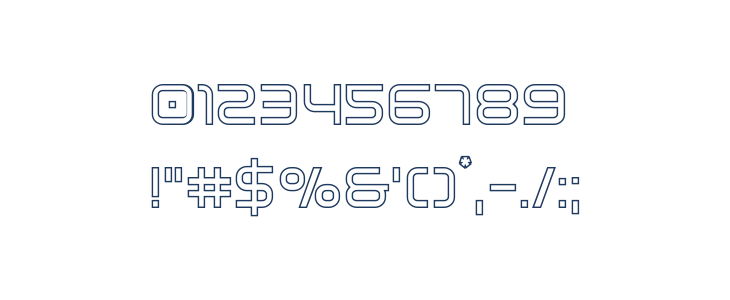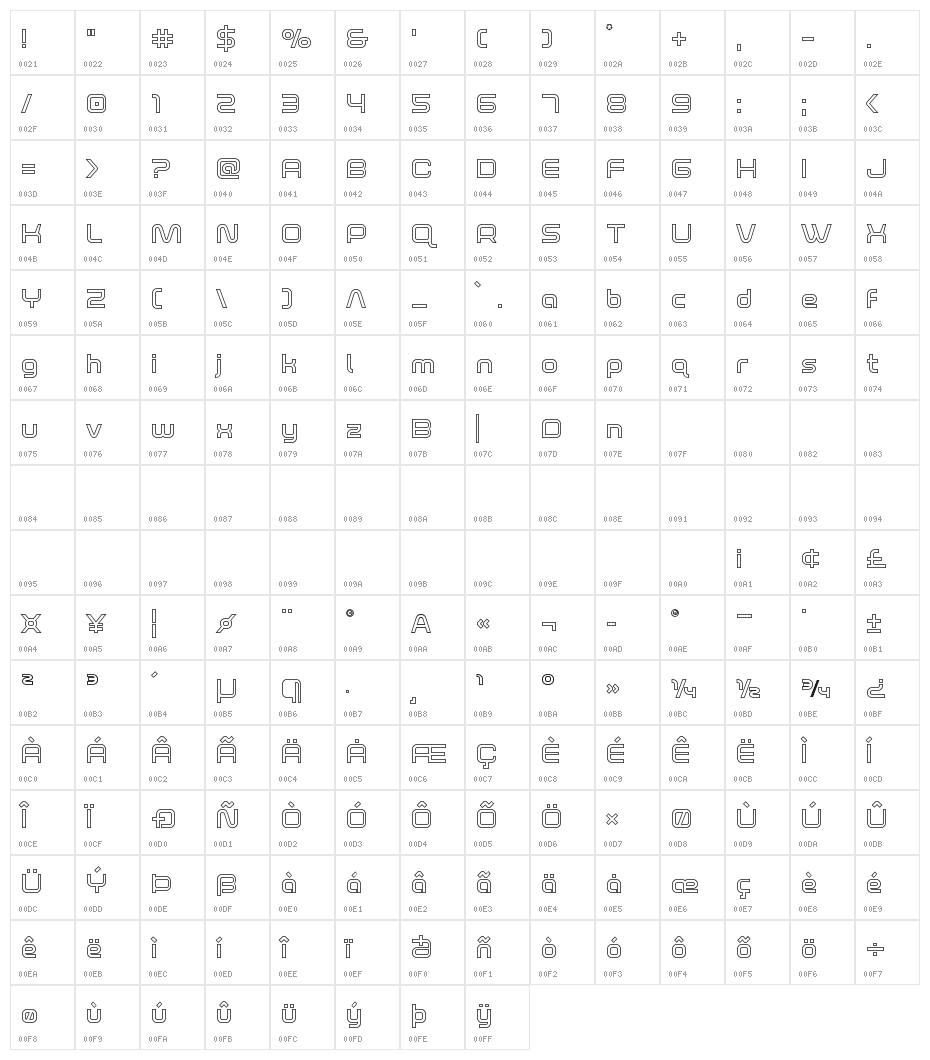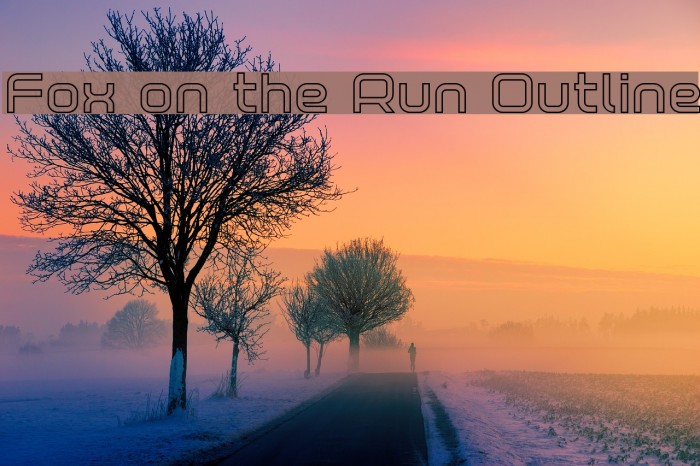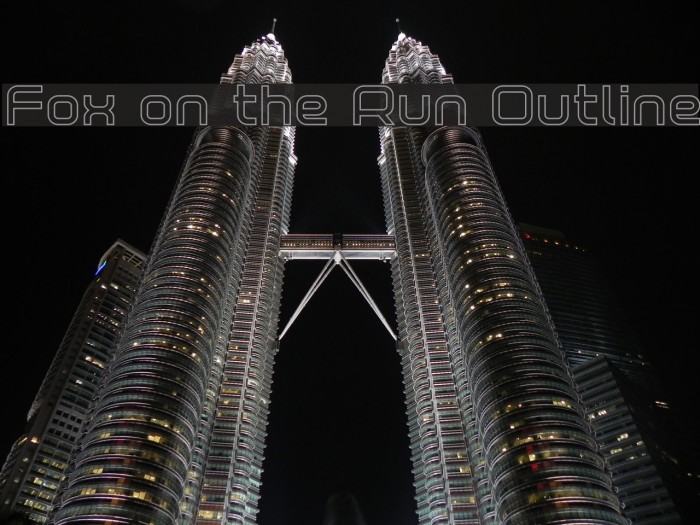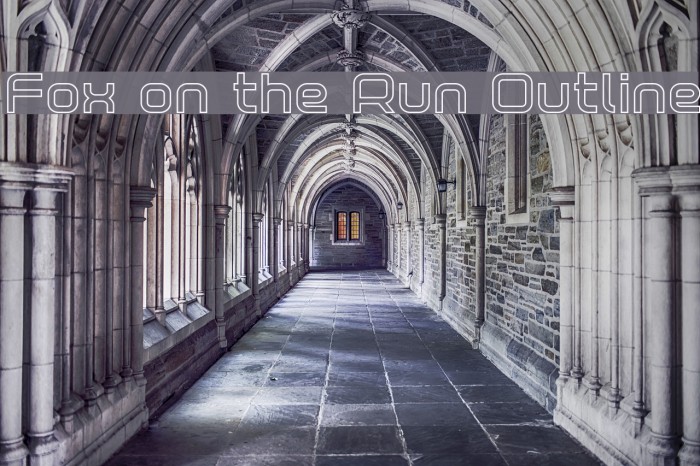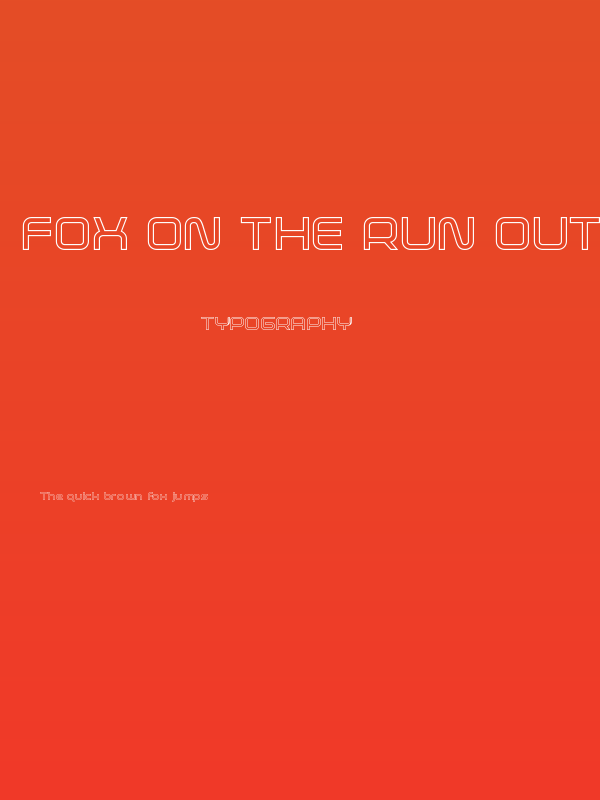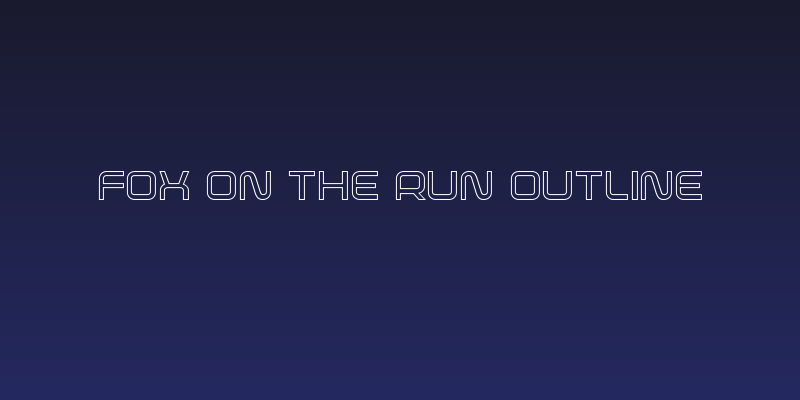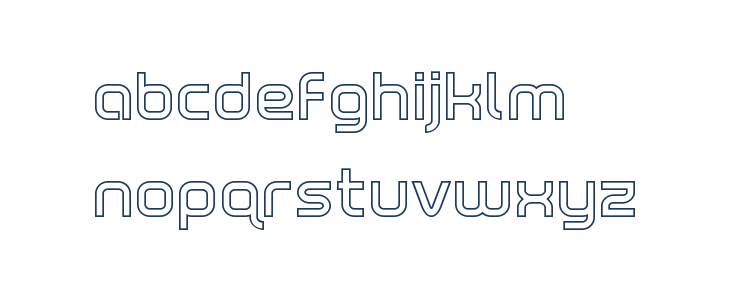
This font features a modern, geometric outline style with clean lines and a structured appearance. Each character is defined by a consistent stroke width, creating a uniform and cohesive look. The uppercase and lowercase letters maintain a similar height, contributing to a balanced and harmonious design. The numerals and special characters follow the same outline pattern, ensuring a seamless integration across different text elements. The font's open and airy design makes it suitable for projects that require a contemporary and minimalist aesthetic.
| Use Case | Logos, Posters, Digital Media |
| Proposed Projects | Ideal for branding, logos, posters, and digital media where a modern and minimalist look is desired. |